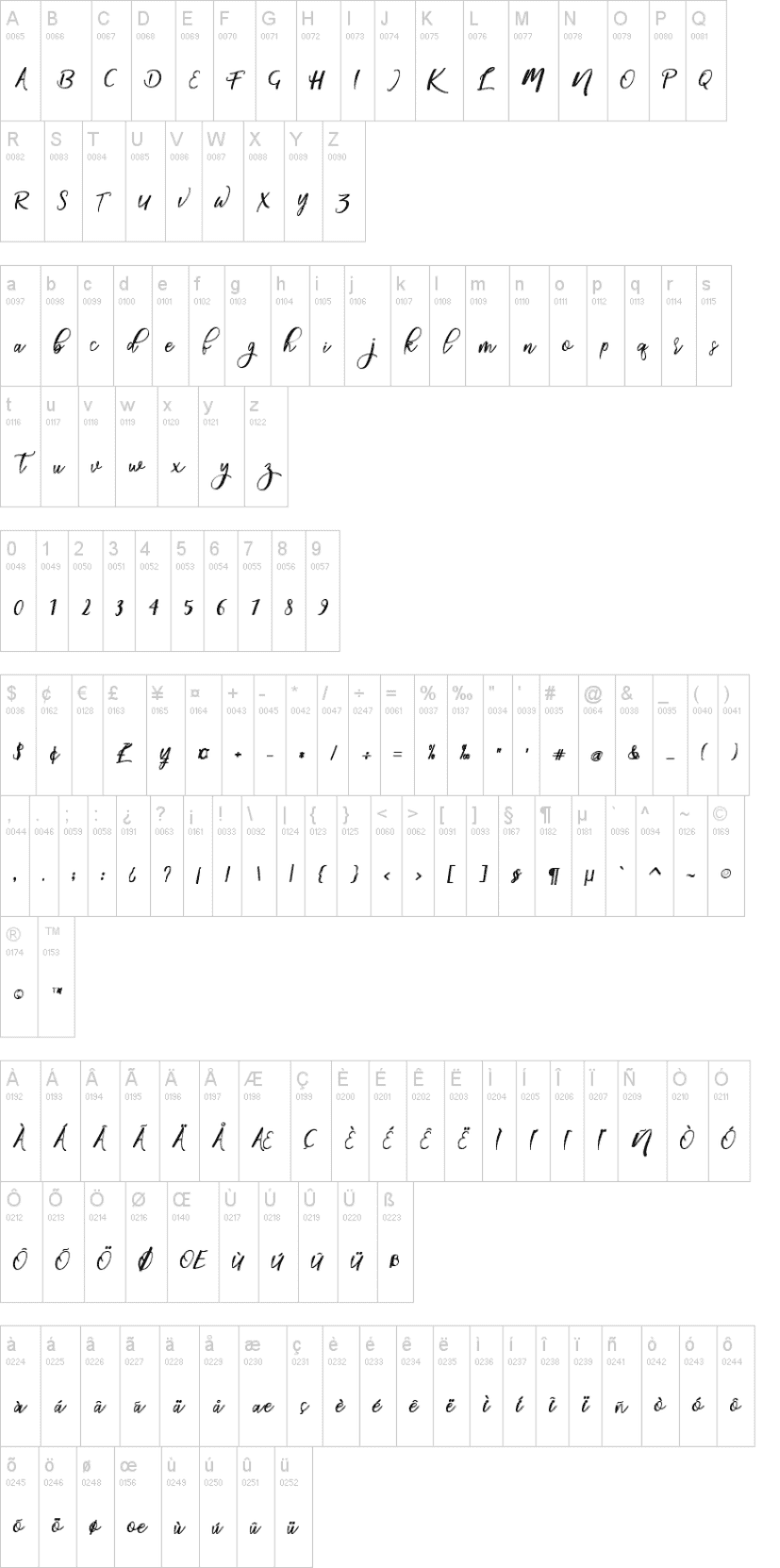
Discover Magic Font, part of the Calligraphy collection—a versatile and unique font perfect for adding a personal touch to your projects. Download it for free and enjoy crafting designs with style, from invitations to social media posts. This font is available exclusively for personal use, giving you the freedom to create without limits. Unlock your creativity with Magic Font today!
Magic Script is a contemporary calligraphy font with the recent handwriting style, this font will be perfect for branding, wedding invitations, magazines, mugs, business cards, quotes, posters and so on. You can test this font if you are interested in buying it.